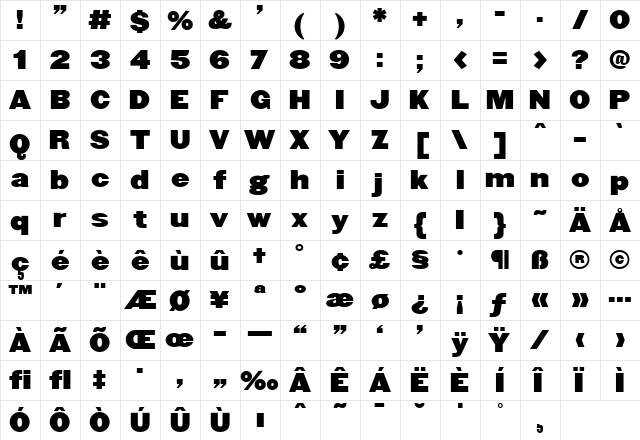
SI-Heavyweight A
Design Context for SI-Heavyweight Typeface
SI-Heavyweight takes a measured approach to typography — its balanced proportions and neutral character make it a reliable workhorse for both digital and print work.